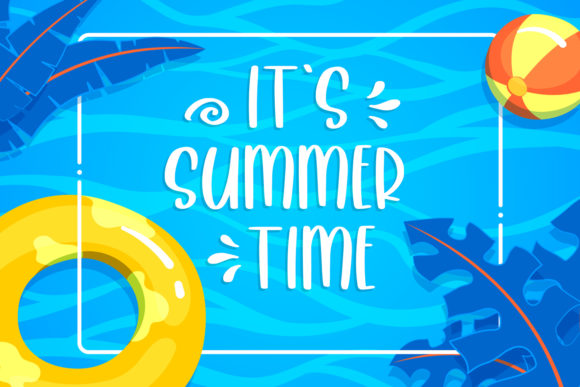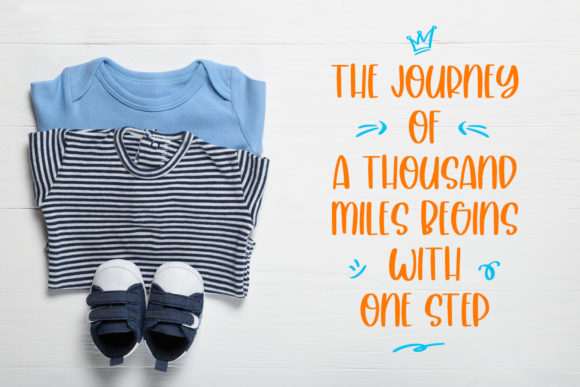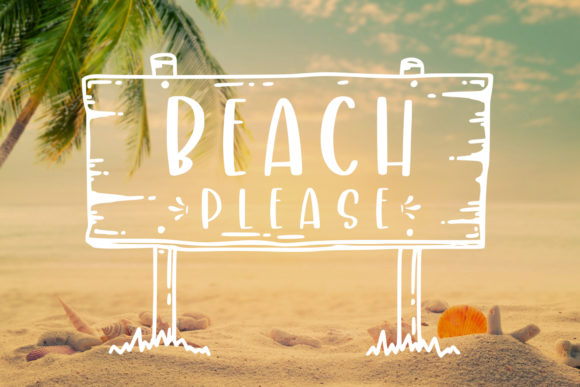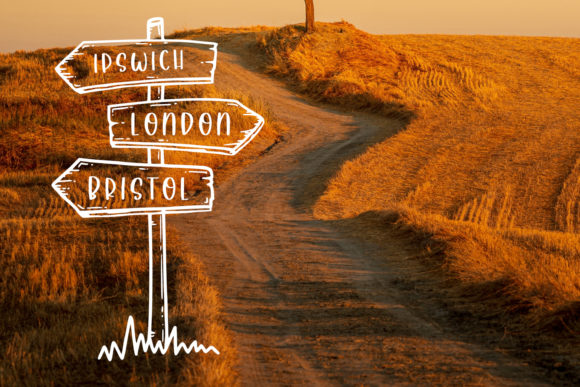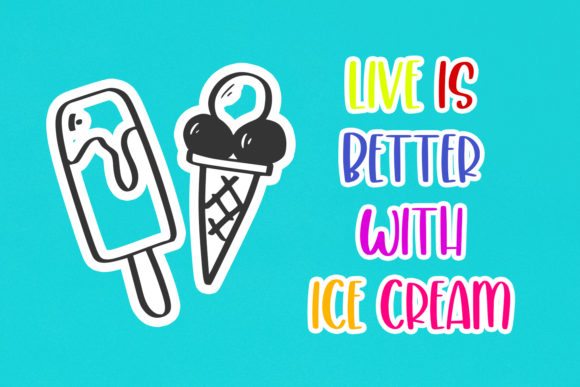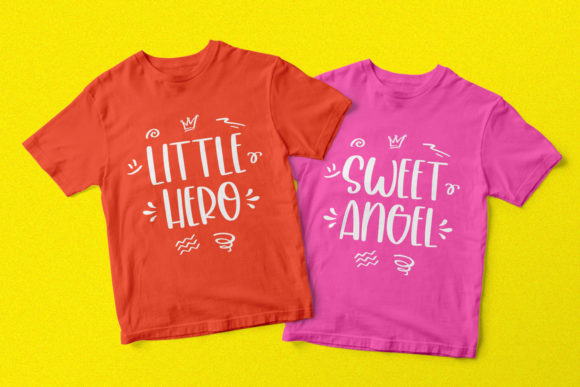
Crafty Beach Font: Elevate Your Summer Crafting Projects with a Casual and Cute Handwritten Style
Are you a designer or crafter looking for a unique and playful font to add a touch of personality to your summer projects? Look no further than Crafty Beach Font, a casual and cute handwritten font that’s perfect for bringing a smile to your audience’s faces. In this article, we’ll dive into the features and benefits of Crafty Beach Font, and explore how it can elevate a wide range of design projects to the highest level.
What is Crafty Beach Font?
Crafty Beach Font is a carefully crafted handwritten font that’s designed to bring a touch of whimsy and fun to your designs. With its casual and cute style, it’s perfect for summer crafting projects, wedding designs, invitations, signatures, logos, labels, and much more. The font features extra doodles and decorations that add a playful touch to your text, making it stand out from the crowd.
Key Features of Crafty Beach Font
- Casual and Cute Handwritten Style: Crafty Beach Font features a unique and playful handwritten style that’s perfect for adding a personal touch to your designs.
- Extra Doodles and Decorations: The font comes with a range of extra doodles and decorations that can be used to add a playful touch to your text.
- Versatile: Crafty Beach Font is perfect for a wide range of design projects, from branding and headings to wedding designs, invitations, signatures, logos, labels, and more.
- Easily Customizable: The font is easy to customize, allowing you to adjust the size, color, and style to suit your design needs.
Benefits of Using Crafty Beach Font
So why choose Crafty Beach Font for your design projects? Here are just a few benefits of using this versatile and playful font:
- Adds a Personal Touch: Crafty Beach Font adds a personal touch to your designs, making them stand out from the crowd and helping to connect with your audience.
- Perfect for Summer Projects: The font’s casual and cute style makes it perfect for summer crafting projects, wedding designs, and other seasonal designs.
- Increases Engagement: The playful and whimsical style of Crafty Beach Font can help increase engagement and bring a smile to your audience’s faces.
- Easy to Use: The font is easy to use and customize, making it perfect for designers and crafters of all levels.
Design Project Ideas Using Crafty Beach Font
So what can you create with Crafty Beach Font? Here are just a few design project ideas to get you started:
- Summer Crafting Projects: Use Crafty Beach Font to add a playful touch to your summer crafting projects, such as DIY signs, cards, and decorations.
- Wedding Designs: The font’s casual and cute style makes it perfect for wedding designs, including invitations, programs, and signage.
- Branding and Logos: Use Crafty Beach Font to create unique and playful branding and logos that stand out from the crowd.
- Invitations and Signatures: The font is perfect for creating custom invitations and signatures that add a personal touch to your correspondence.
In conclusion, Crafty Beach Font is a versatile and playful font that’s perfect for designers and crafters looking to add a touch of personality to their summer projects. With its casual and cute handwritten style, extra doodles and decorations, and ease of use, it’s the perfect choice for a wide range of design projects. So why wait? Download Crafty Beach Font today and start creating unique and engaging designs that bring a smile to your audience’s faces!